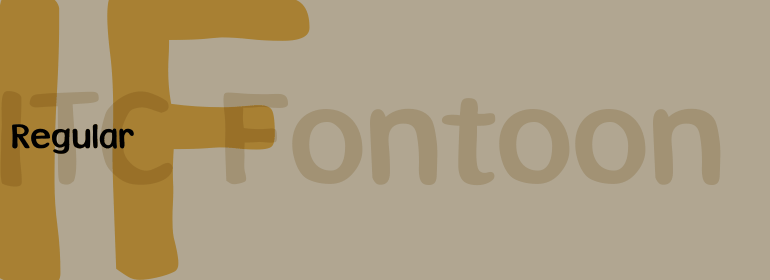
ITC Fontoon™
ITC Fontoon was designed by Steve Zafarana of the Galápagos Design Group in 1995. Along with ITC Fontoonies and ITC Gargoonies from the same designers, it is the perfect text font for cartoons and comics. Slight irregularities in stroke contrast and basic forms distinguish ITC Fontoon and make it look like printed handwriting. It has an individual and consciously naive character and its high x-height makes it legible even in smaller point sizes. ITC Fontoon is best used for short texts and headlines.